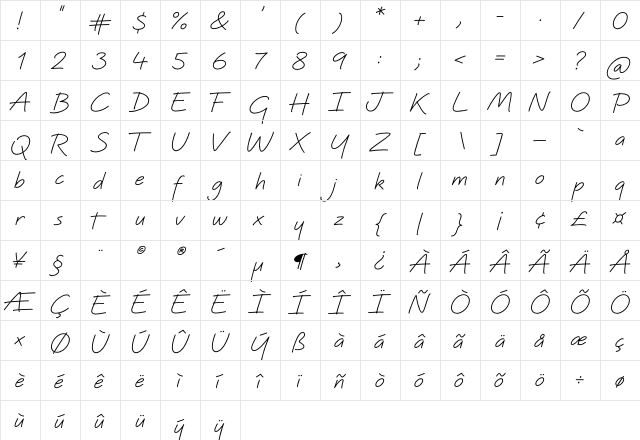
Quinzey Medium
| Designer | Youssef Habchi |
Design Context for Quinzey Typeface
Quinzey is a composed and adaptable typeface that performs quietly and consistently across a wide range of design contexts.